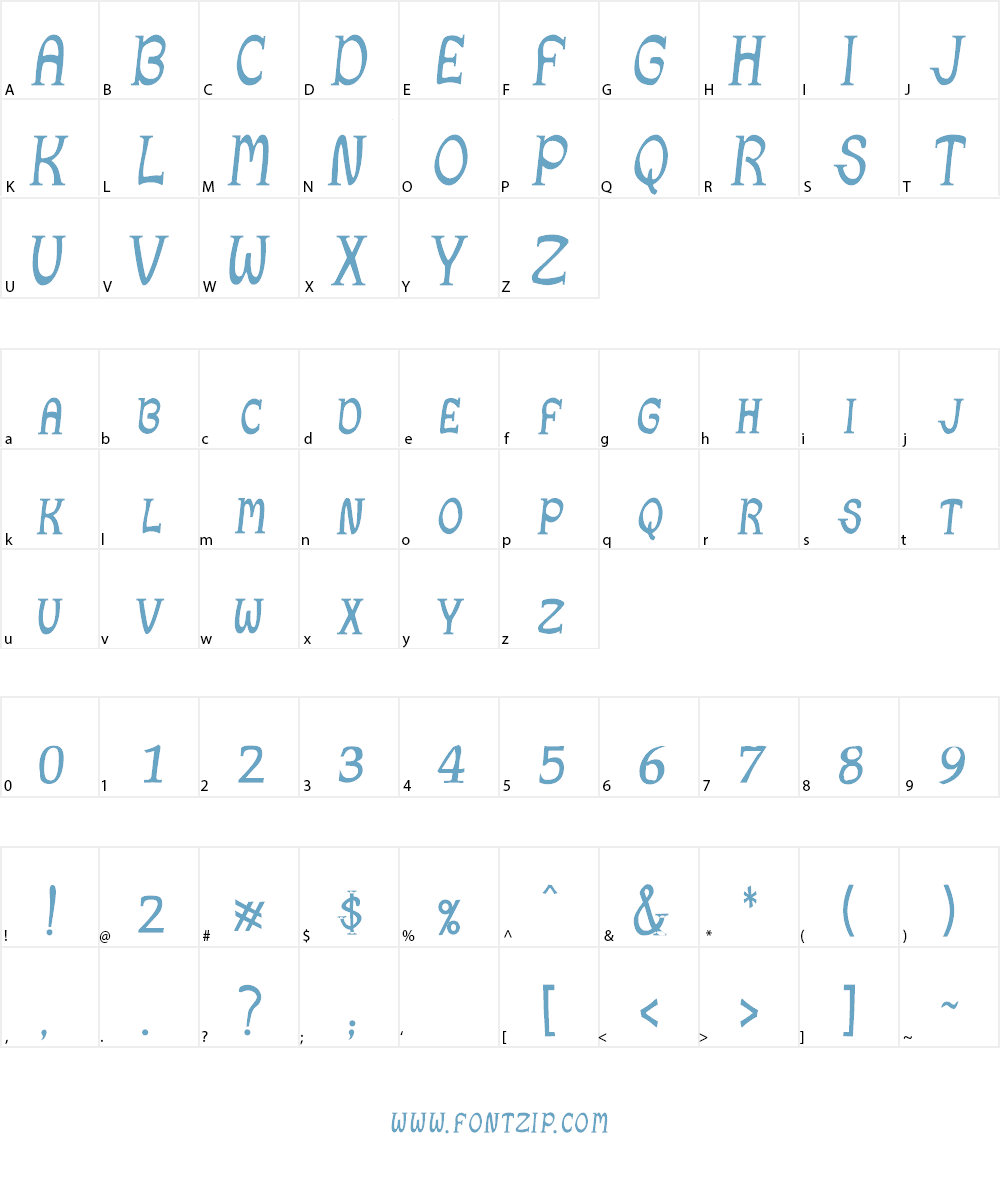
Proffessor Eberhardt's delictable experiments with edible typography continue to cast a huge shadow over my meagre undertakings. Spent all of Thursday combing the Tuscan hills for a reasonably-priced pasta factory without labor problems.
I will bet my career on it: this design for a serifed alphabet soup could work well for people on low-sodium diets.
It will be interesting to hear what the haters haave to say.